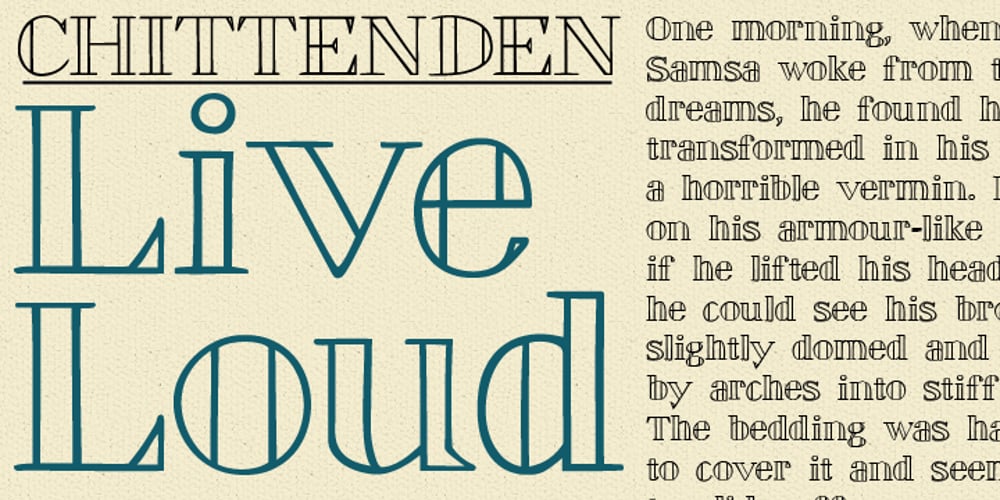
Chittenden Font Family was designed by Alec Julien and published by Haiku Monkey. Chittenden contains 1 styles and family package options. Chittenden is a painstakingly hand-crafted, hand-drawn decorative font that get its inspiration from classic serif fonts, and adds some double-stroked panache of its own.